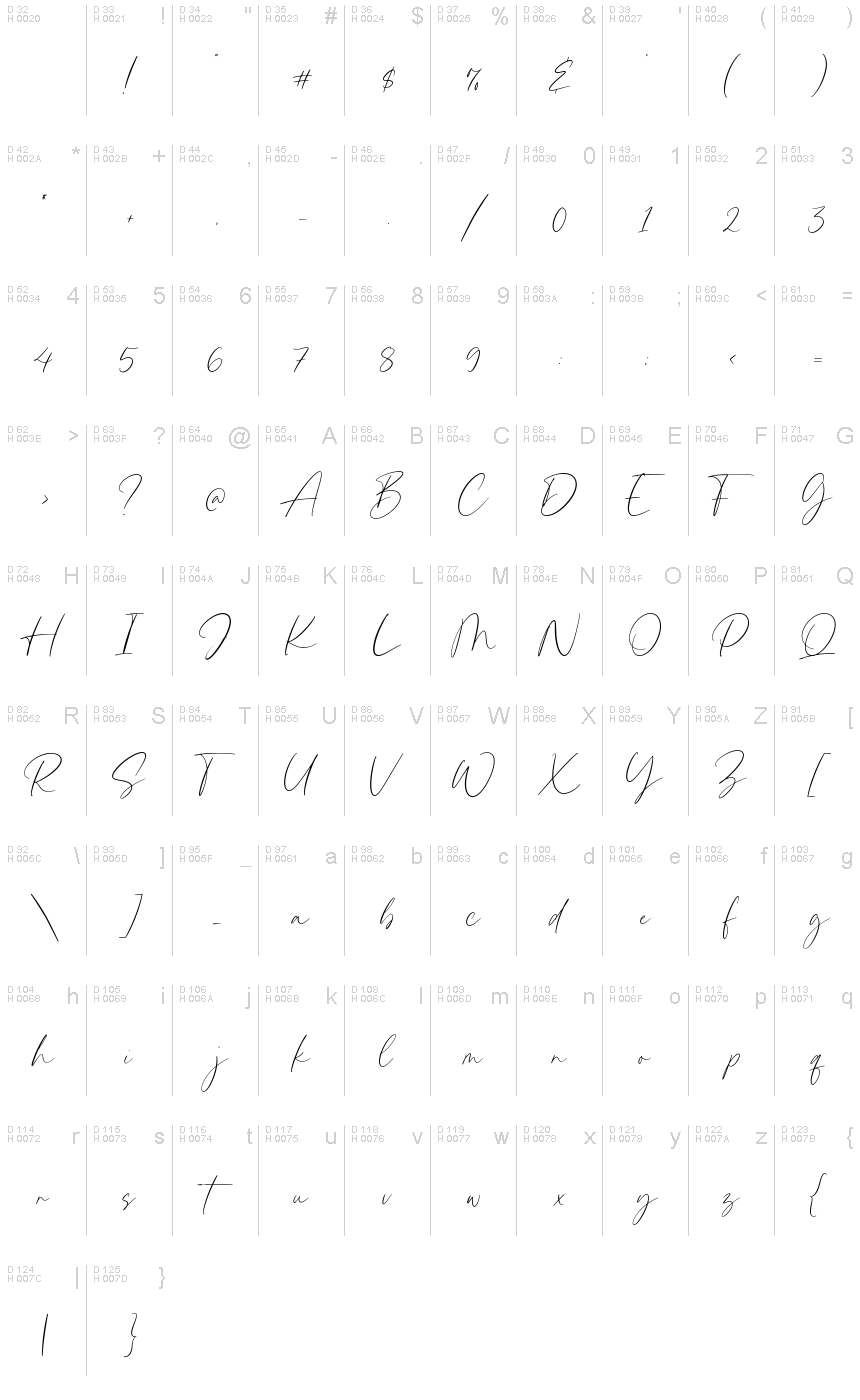
Aesthetica
Aesthetica, designed by Timur Type, carries the charm of a light handwritten font. Its flowing lines and organic curves evoke a sense of elegance and personal touch, reminiscent of graceful calligraphy. The deliberate variation in stroke thickness within individual characters imparts a dynamic rhythm to the text, offering a visual melody that speaks to its handwritten nature.
This font's gentle and refined aesthetic makes it an excellent choice for branding luxury products or services that want to convey sophistication and exclusivity. It is equally at home on wedding invitations or upscale event announcements, where its personal and artistic qualities can shine.
The Aesthetica font stands out in contexts that require a blend of intimacy and flair – perfect for boutique shop signage or creative business cards where a distinctive identity is paramount. Its style suggests refinement without pretense, making it accessible yet memorable in design applications seeking to balance approachability with an air of bespoke craftsmanship.